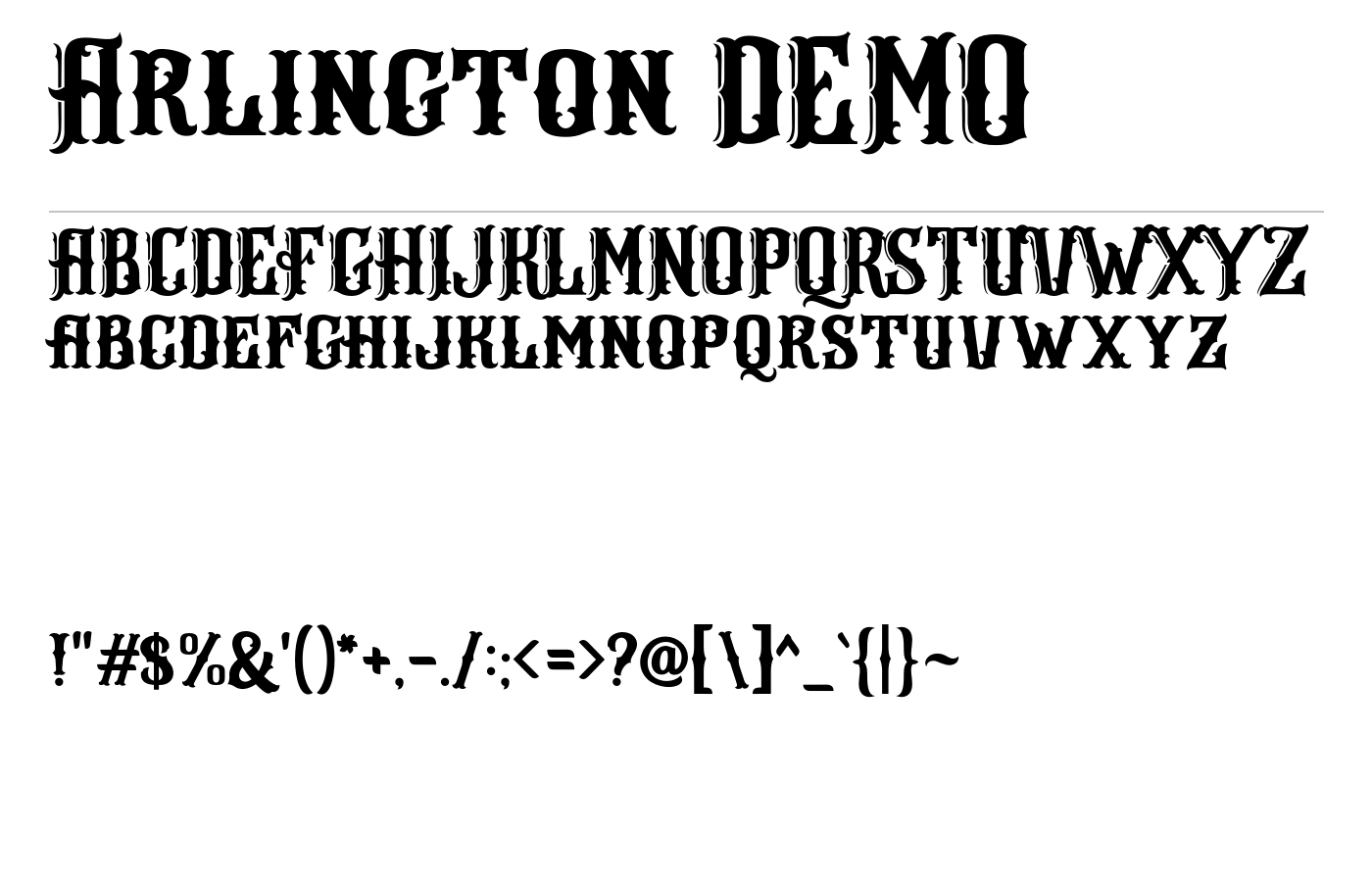
Arlington DEMO is a bold, narrow serif font with a distinctive vintage flair, featuring ornate, bracketed serifs and strong contrast between thick and thin strokes. Its dramatic, decorative letterforms evoke a historical or western vibe, making it perfect for eye-catching headlines, logos, and packaging that seek a unique and classic character. This font works well for projects aiming to convey tradition, uniqueness, and a touch of old-world elegance.
Arlington DEMO Font
About Arlington DEMO Font
| Font family | Arlington DEMO Font |